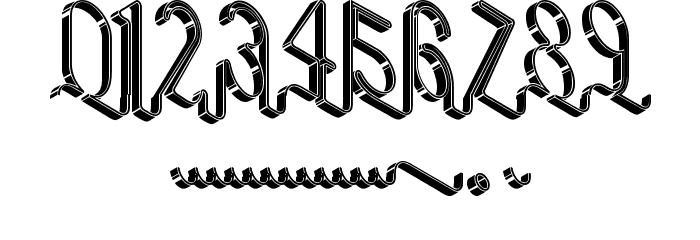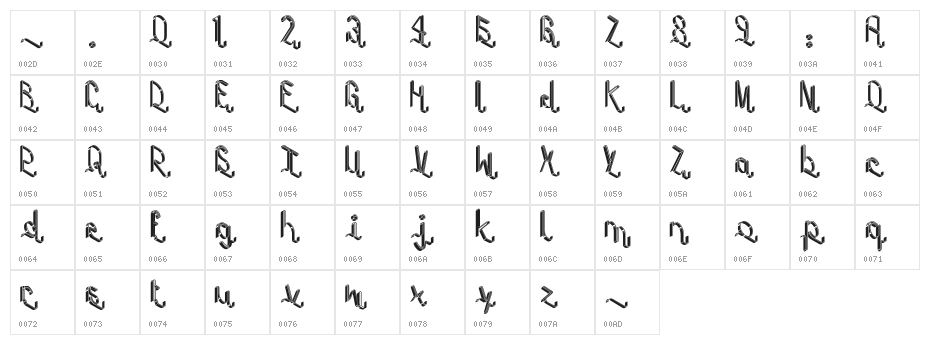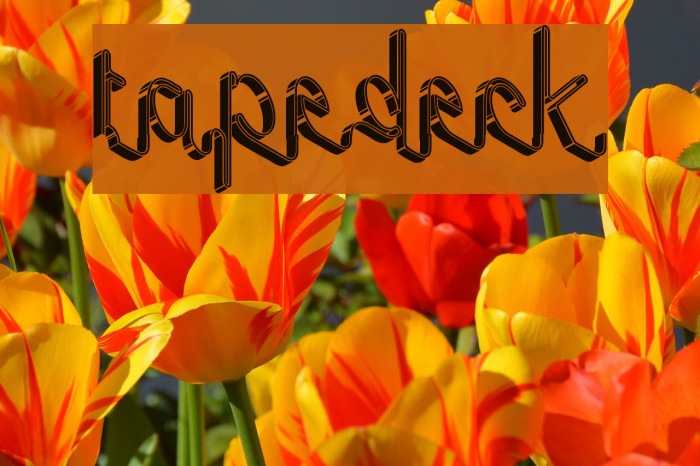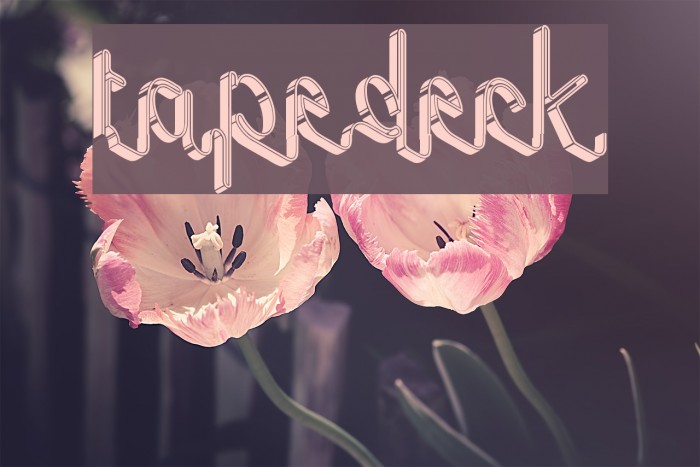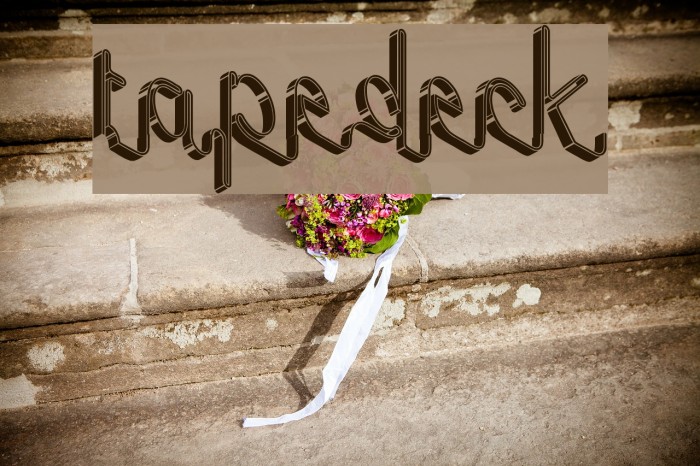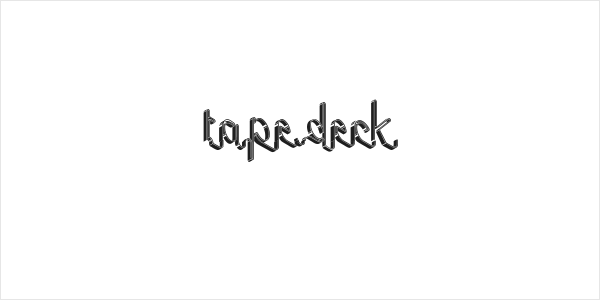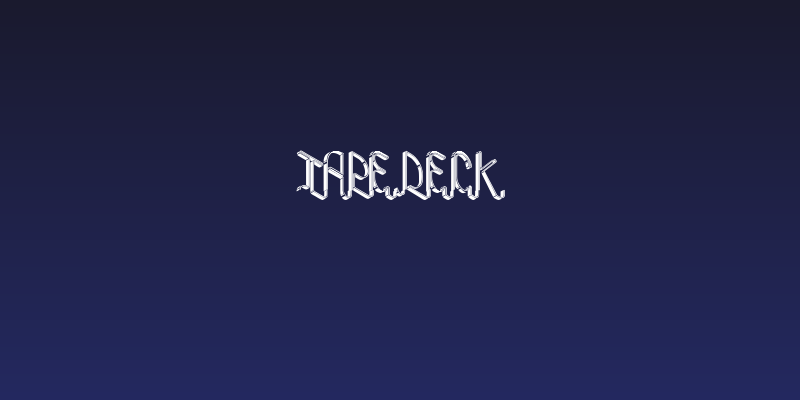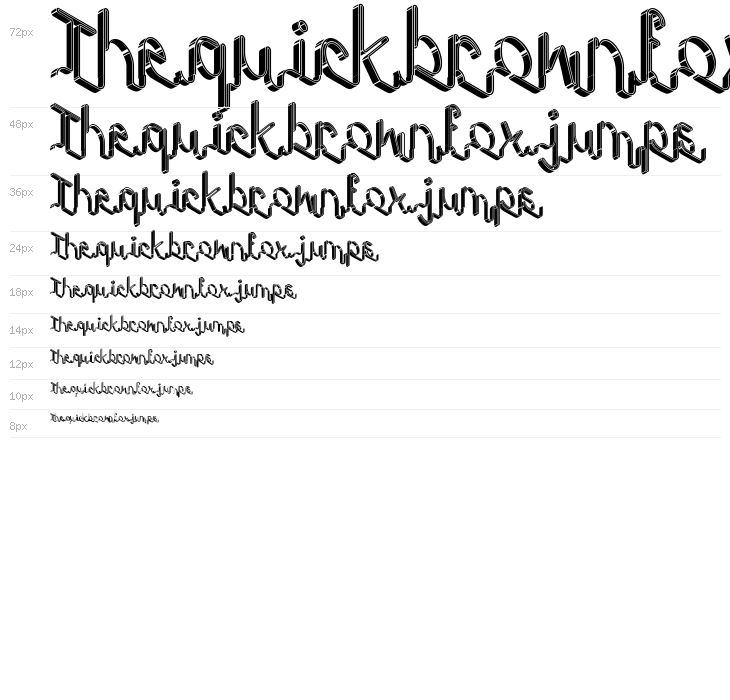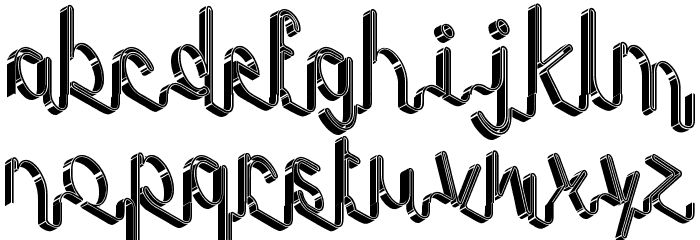
tape deck Font
tape deck Description
This font features a bold, three-dimensional design with a retro-futuristic aesthetic. The characters are constructed with thick lines and shadowing that give a sense of depth and movement. The uppercase and lowercase letters maintain a consistent style, with angular edges and a geometric structure. Numbers and special characters follow the same design principles, ensuring uniformity across all elements. The font's unique style makes it stand out, ideal for projects that require a strong visual impact.
TAPE-DECK UPPERCASE
TAPE-DECK LOWERCASE
TAPE-DECK OTHER CHARS
| Overall Style | Retro-Futuristic |
| Proposed Projects | Ideal for album covers, posters, branding, and any project needing a striking, retro-futuristic look. |